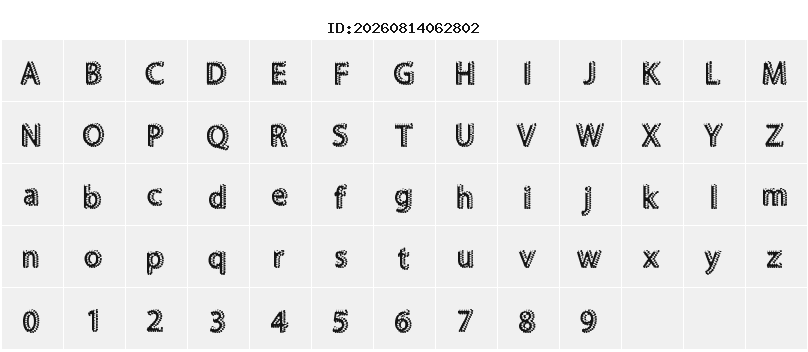
• Font Name: SuperBling
• Designer: Max Infeld
• Manufacturer: Xerographer Fonts
• Description: bling illusion optial wave This font is from chico,CA
About SuperBling.ttf
SuperBling.ttf is a modern, elegant sans-serif font designed for ultimate readability and visual harmony. Perfect for branding, headlines, web design, and print materials.